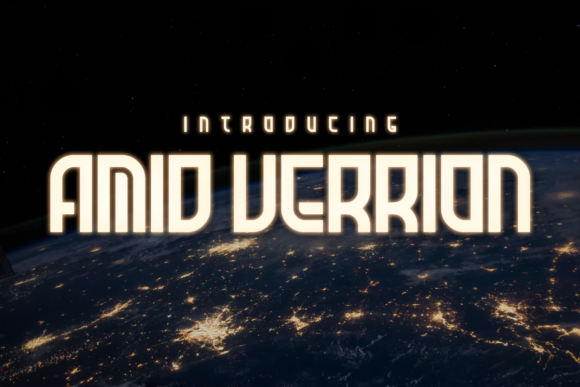
Discover the Unique Charm of Amid Verrion Font
In the vast world of typography, few fonts manage to stand out from the crowd and make a lasting impression. Amid Verrion, however, is one such typeface that has been gaining attention for its distinctive style and versatility. In this article, we’ll delve into the characteristics of Amid Verrion Font and explore its various uses, making it a must-know for designers and crafters alike.
What Makes Amid Verrion Font Special?
Amid Verrion is truly a one of a kind typeface and can be used for various designing needs. Its unique design elements set it apart from more traditional fonts, offering a fresh and modern aesthetic that can elevate any project. Whether you’re working on a branding campaign, a website, or a craft project, Amid Verrion provides a distinctive look that can help your work stand out.
Key Features of Amid Verrion Font
• Unique Glyphs: Amid Verrion boasts a collection of unique glyphs that add character and personality to any text. Its letters are designed with careful attention to detail, ensuring that each one is not only aesthetically pleasing but also highly legible.
• Versatile Style: This typeface is incredibly versatile, making it suitable for a wide range of applications. From headlines and titles to body text, Amid Verrion can adapt to various design needs, providing a consistent and professional look.
• Modern Aesthetic: With its clean lines and contemporary design, Amid Verrion embodies a modern aesthetic that appeals to designers looking for a font that can convey a sense of innovation and sophistication.
Uses of Amid Verrion Font
The versatility of Amid Verrion Font makes it an excellent choice for various design projects. Here are some of the ways you can utilize this unique typeface:
• Branding and Logo Design: Create a memorable brand identity with Amid Verrion. Its distinctive style can help your logo stand out and make your brand more recognizable.
• Web Design: Enhance your website’s typography with Amid Verrion. Its legibility and modern look make it perfect for headings, titles, and even body text.
• Graphic Design: Whether you’re designing posters, flyers, or brochures, Amid Verrion can add a touch of elegance and sophistication to your work.
• Crafting and DIY Projects: For crafters and DIY enthusiasts, Amid Verrion can be used in various projects, such as handmade cards, scrapbooking, and other paper crafts.
Tips for Using Amid Verrion Font Effectively
To make the most of Amid Verrion Font, consider the following tips:
• Pair with Complementary Fonts: Combine Amid Verrion with other fonts that complement its style. A good pairing can enhance the overall look of your design.
• Experiment with Sizes and Weights: Don’t be afraid to experiment with different sizes and weights of Amid Verrion. This can help create visual hierarchy and add depth to your design.
• Use it Sparingly: While Amid Verrion is a beautiful font, using it sparingly can make it more impactful. Consider using it for headings or key messages to draw attention.
Amid Verrion Font is a unique and versatile typeface that offers a fresh perspective for designers and crafters. Its distinctive style, combined with its legibility and modern aesthetic, makes it suitable for a wide range of design projects. By incorporating Amid Verrion into your work, you can add a touch of sophistication and innovation, setting your designs apart from the rest. So why not give Amid Verrion a try and discover the difference it can make in your next project?